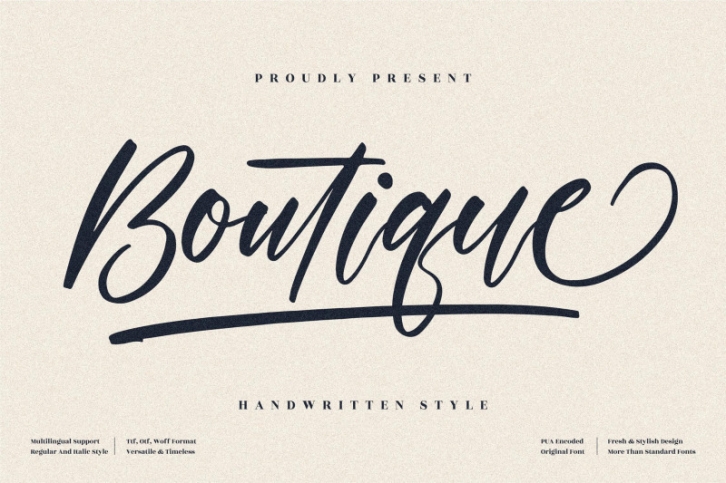
Boutique - Beautiful Handwritten Font Download
Boutique - Beautiful Handwritten Font, from Perspectype Studio, is a handwritten font, suitable for any projects such as: logos, branding projects, homeware designs, product packaging, mugs, quotes, posters, shopping bags, t-shirts, book covers, name card, invitation cards, greeting cards, label, photography, watermark, special events, and all your other luxury projects that need a handwritten taste.
Ligature, Alternate & Swashes